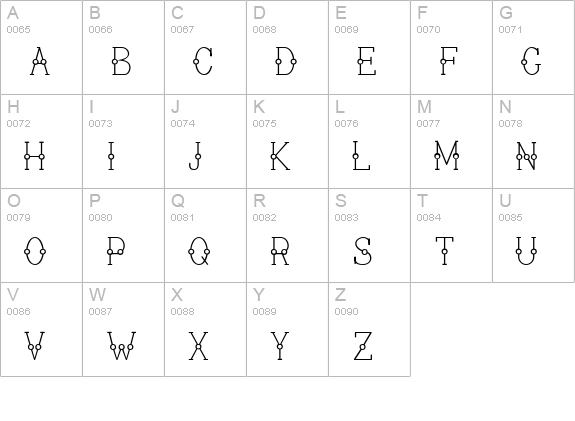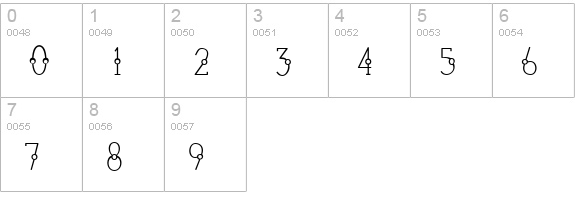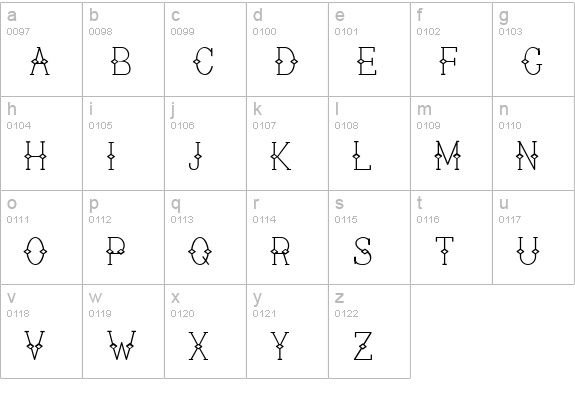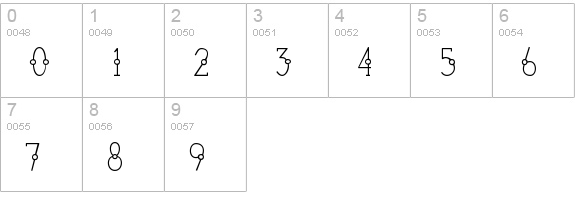
Circlet Medium is a balanced, medium-weight variant in the Circlet typeface family \xE2\x80\x94 well suited to sub-headlines, navigation, and balanced editorial work.
Circlet Medium font is a beautifully crafted typeface that exudes elegance and sophistication. Its sleek and modern design makes it perfect for a wide range of design projects, from branding to editorial layouts. The clean lines and balanced letterforms of Circlet Medium font give it a timeless quality that is sure to make your text stand out. Best of all, Circlet Medium font is available for free download at FontsMarket.com. This means you can start using this stunning font in your projects right away, without having to spend a dime. Don't miss out on the opportunity to enhance your designs with the beauty and versatility of Circlet Medium font - download it for free today!